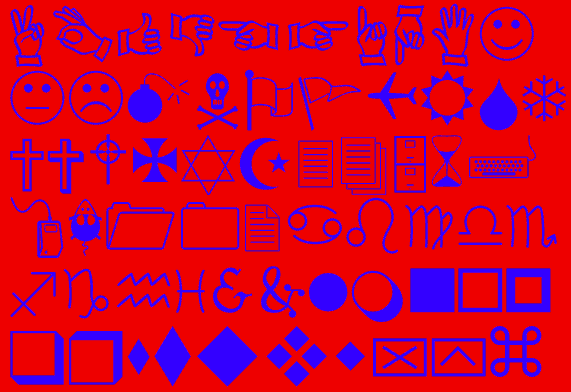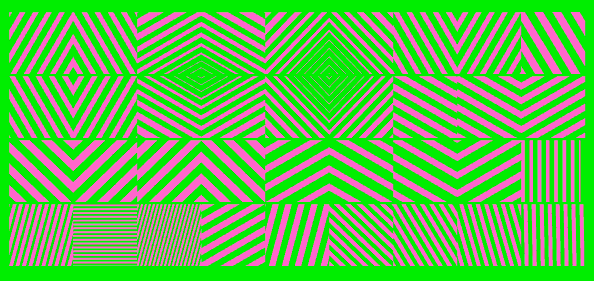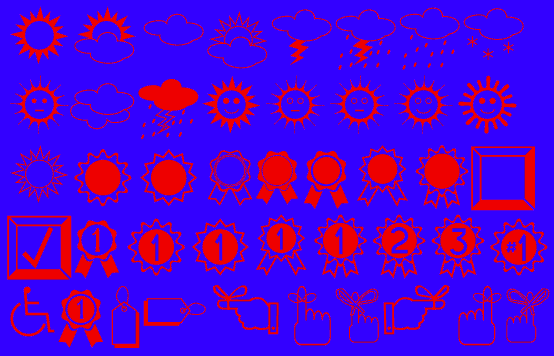
The first dingbat font that became widely used on computers was that of Zapf, introduced on the Macintosh sometime in the mid 1980s. When Microsoft finally got Windows to work, they introduced Wingdings. The selection of images above is an alternative rendition of many of the Wingding images. This typeface is called IngyDing. Below is IngyDingTwo. Not shown on these pages are other dingbat fonts I have done such as IngyDingThree and IngyDingLeftovers.
Rain or shine, win or lose, there are dingbats that tell a story. And there are also dingbats that tell nothing at all, such as those from the typeface Textures, shown below.
Textures and patterns can be constructed using typefaces. Can you see possibilities here?